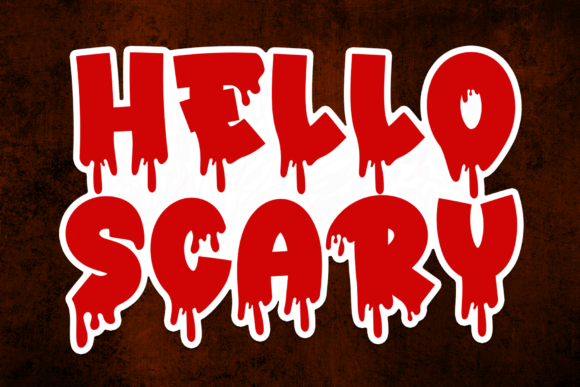
Hello Scary Font: The Ultimate Guide to Creating Spooky Designs
In the world of graphic design, fonts play a crucial role in conveying the tone and atmosphere of a project. When it comes to creating spooky and magical designs, the right font can make all the difference. That’s where Hello Spooky comes in – an incredibly cool and unique display font that has a modern yet whimsical style. In this article, we’ll dive into the world of Hello Scary Font and explore how it can help you create enchanting designs that transport your audience to a magical world.
What Makes Hello Spooky So Special?
Hello Spooky is a one-of-a-kind display font that boasts a distinctive and captivating style. Its modern yet whimsical design makes it perfect for a wide range of projects, from Halloween-themed designs to fantasy-inspired creations. The font’s unique features include:
- Unique lettering style: Hello Spooky’s letters are carefully crafted to create a sense of mystique and wonder.
- Modern and whimsical: The font’s design combines modern elements with a touch of playfulness, making it perfect for designs that require a sense of magic and enchantment.
- Highly legible: Despite its unique style, Hello Spooky remains highly legible, making it suitable for use in a variety of contexts.
Design Inspiration: How to Use Hello Spooky in Your Projects
Hello Spooky’s versatility makes it an excellent choice for a wide range of design projects. Here are some ideas to get you started:
- Halloween-themed designs: Create spooky and inviting designs for Halloween-themed projects, such as party invitations, pumpkin carvings, or haunted house flyers.
- Fantasy-inspired creations: Use Hello Spooky to create magical and enchanting designs for fantasy-inspired projects, such as book covers, movie posters, or video game artwork.
- Whimsical branding: Add a touch of whimsy to your brand’s identity with Hello Spooky’s unique and captivating style.
Font Pairing: Combining Hello Spooky with Other Fonts
To create visually appealing designs, it’s essential to pair Hello Spooky with complementary fonts. Here are some font pairing suggestions:
- Serif fonts: Pair Hello Spooky with serif fonts, such as Times New Roman or Garamond, to create a striking contrast between the modern and whimsical font and the classic serif font.
- Script fonts: Combine Hello Spooky with script fonts, such as Pacifico or Great Vibes, to add a touch of elegance and sophistication to your designs.
- Display fonts: Pair Hello Spooky with other display fonts, such as bold sans-serif fonts, to create a bold and eye-catching design.
Design Tips: Getting the Most Out of Hello Spooky
To get the most out of Hello Spooky, here are some design tips to keep in mind:
- Experiment with font sizes: Play around with different font sizes to create visual interest and hierarchy in your designs.
- Use color effectively: Choose colors that complement the font’s unique style and add to the overall atmosphere of your design.
- Add texture and patterns: Incorporate texture and patterns to add depth and visual interest to your designs.
Alternatives to Hello Scary Font: Exploring Other Spooky Fonts
If you’re looking for alternative fonts to Hello Spooky, here are some options to consider:
- Crimson Text: A elegant and spooky font perfect for creating creepy and atmospheric designs.
- Raleway: A modern and elegant font with a touch of whimsy, ideal for creating sophisticated designs.
- Playfair Display: A luxurious and elegant font perfect for creating high-end designs with a touch of spookiness.
The Many Uses of Hello Scary Font: A Versatile Design Tool
Hello Spooky’s versatility makes it an excellent choice for a wide range of design projects. Here are some examples of how you can use the font:
- Advertising and marketing: Use Hello Spooky to create eye-catching and memorable ads and marketing materials.
- Packaging design: Add a touch of whimsy and magic to your product packaging with Hello Spooky’s unique style.
- Digital media: Use Hello Spooky to create engaging and immersive digital experiences, such as video game titles, movie posters, or social media graphics.
In conclusion, Hello Spooky is an incredibly cool and unique display font that can add a touch of magic and whimsy to your designs. With its modern yet whimsical style, it’s perfect for creating spooky and enchanting designs that transport your audience to a magical world. Whether you’re a designer, artist, or DIY enthusiast, Hello Spooky is an excellent choice for any project that requires a sense of mystery and wonder.